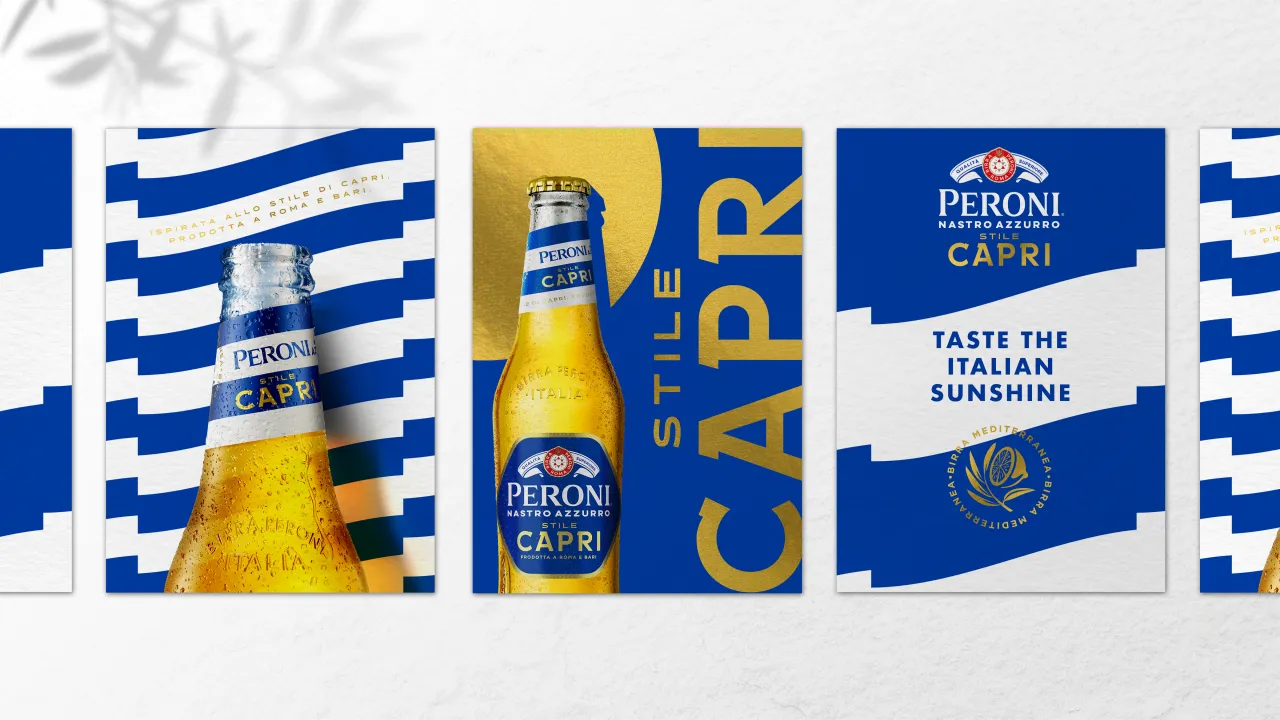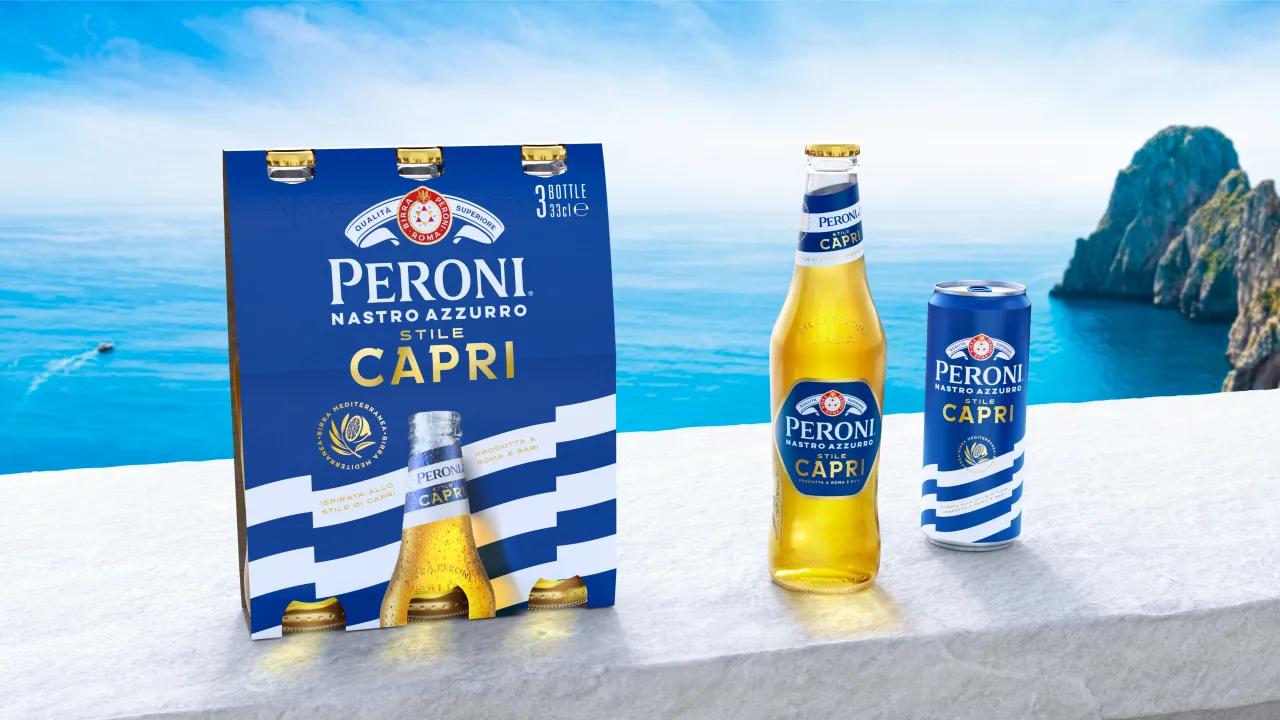
The biggest font trends to look out for in 2025
From a sans-serif backlash to neo-retro revivals, our experts predict a diverse typographic landscape for the coming year.
Ladna by Tüpokompanii
No one wants to be seen as a follower of trends. We all want to be seen as individuals, ploughing our own paths and pursuing our own creative vision.
But let's get real. We don't exist in a vacuum, and we all need to be aware of what's happening culturally around us. That doesn't mean you should ape it, and it's perfectly fine to ignore it altogether if you've really thought it through. But at the same time, you need to make an informed decision, not one forged by ignorance.
So, every year, we gather intelligence from creative leaders to inform you about the latest typography trends bubbling up within the industry. As 2024 turns into 2025, we've got a lot to tell you about, from the resurgence of serifs to the rise of imperfect letterforms.
Read on to discover how designers and brands alike are set to navigate the complex terrain of typography in 2025, balancing functionality with flair and tradition with innovation. Alternatively, if it's specific font recommendations you're looking for, head to our article 50 fonts that will be popular with designers in 2025.
The return of the serif
It's undeniable we've seen an explosion of sans serif typography over the past year, if not the last decade. But every action has an equal but opposite reaction. And Beth Vizard-Overbury, designer at Outlaw, predicts a resurgence of serif typefaces in 2024.
There are signs of this happening already, she believes. "With recent trends reflecting on brand's histories and evoking nostalgia, serif type has naturally resurfaced," says Beth. "And in 2024, our collaboration with Peroni Nastro Azzurro on the Peroni Capri Stile sub-brand led to the creation of a bespoke slab serif typeface that seamlessly blends Peroni's classic serif branding with modern design aesthetics.
"The Capri Stile typeface bridges the gap between the sub-brand and the parent brand, cross-pollinating their identities by merging premium serif qualities with bold, geometric slab serif elements. This hybrid typeface exists comfortably in both traditional and contemporary worlds, embodying the timeless elegance of a serif while maintaining the bold, geometric structure of a sans-serif, resulting in a design that feels both innovative and reassuring."
Peroni Capri by Outlaw
Going forward, she sees an increasing role for "minimal yet impactful customised serifs", creating a middle ground between classic and modern. "I've started to notice contemporary brands shifting toward this trend, but with a slight edge," she says. "Contemporary serif typefaces are being modernised by increasing weights, experimenting with beaks, cross strokes, descenders, and more, which I'm sure will continue throughout 2025.
Pushback against sans serifs
Grant Mitchell, creative director at Design by Future, certainly hopes she's right. "As we look ahead to 2025, I hope that designers might start pushing back against the homogenisation of sans serifs that has dominated in recent years," he explains. "The trend towards oversimplified typography, especially in major brand logos, has led to designs that, while clean and minimal, often lack distinct personality and character. Logos have been stripped down to the point where they risk becoming indistinguishable from one another."
He has a point. In a digital landscape where inspiration is just a scroll away, it's always easy for designers and typographers to draw from the same influences, resulting in a uniformity of style. As Grant puts it: "Social media feeds filled with similar visuals have become a shared well from which many are drinking."
Parker's identity for historic mattress brand Ostermoor
The Wombles by How&How
He hopes that, moving forward, creatives will break free from this cycle of similarity. "The opportunity is ripe for designers to deviate from this well-trodden path, stop following trends blindly and embrace a more experimental approach to typography, when and where appropriate," says Grant. "By exploring unique letterforms and pushing the boundaries of type design, creatives can foster a more human authentic way to communicate visually with their audiences.